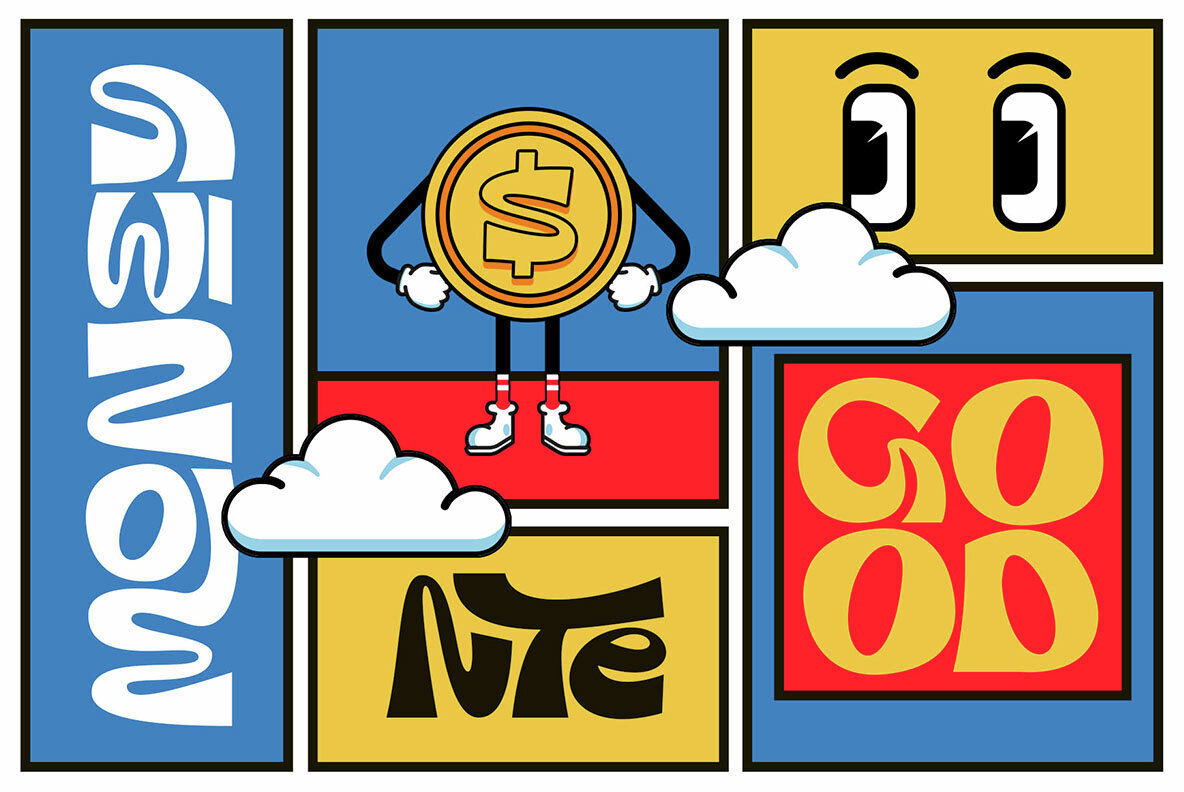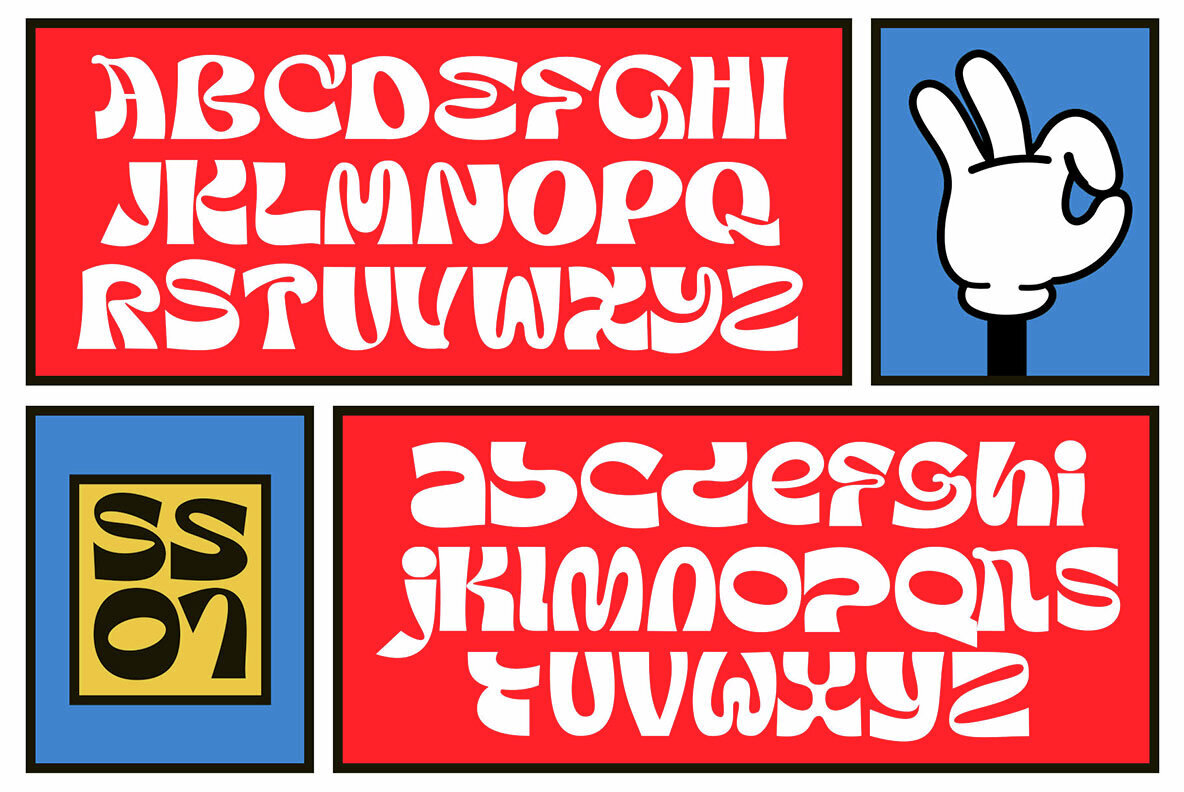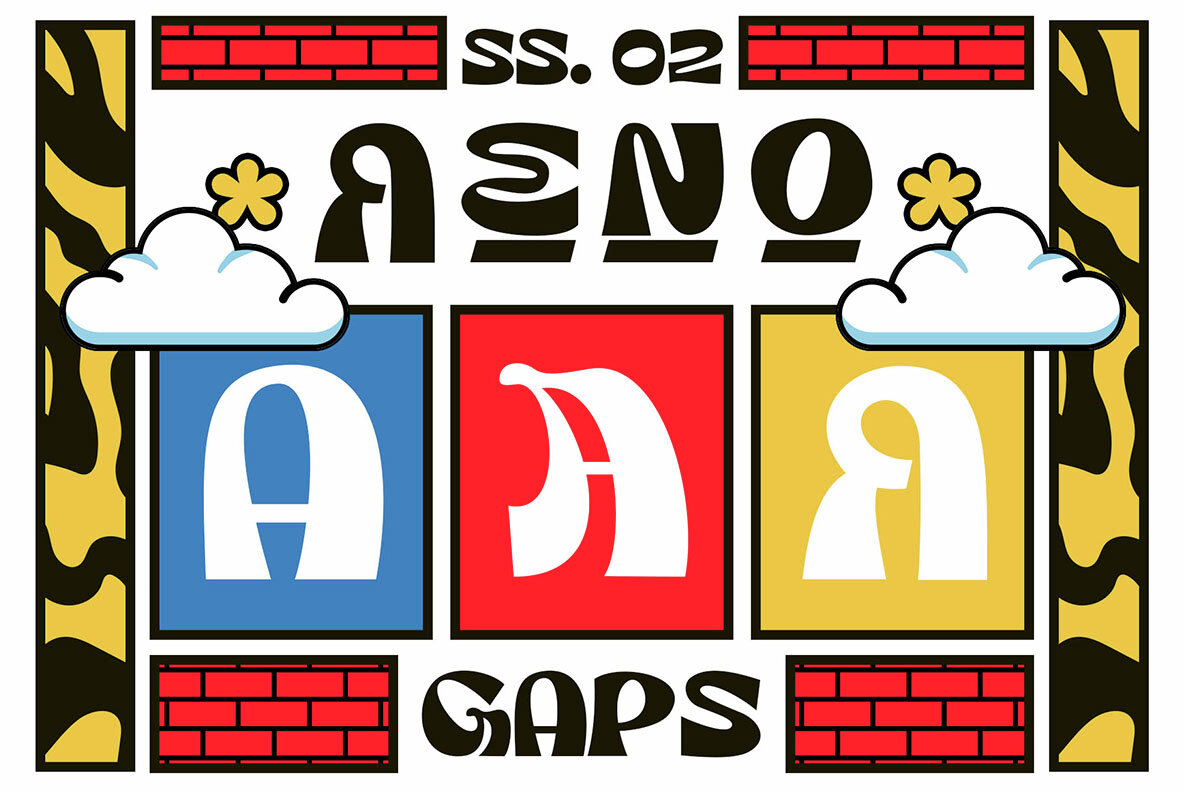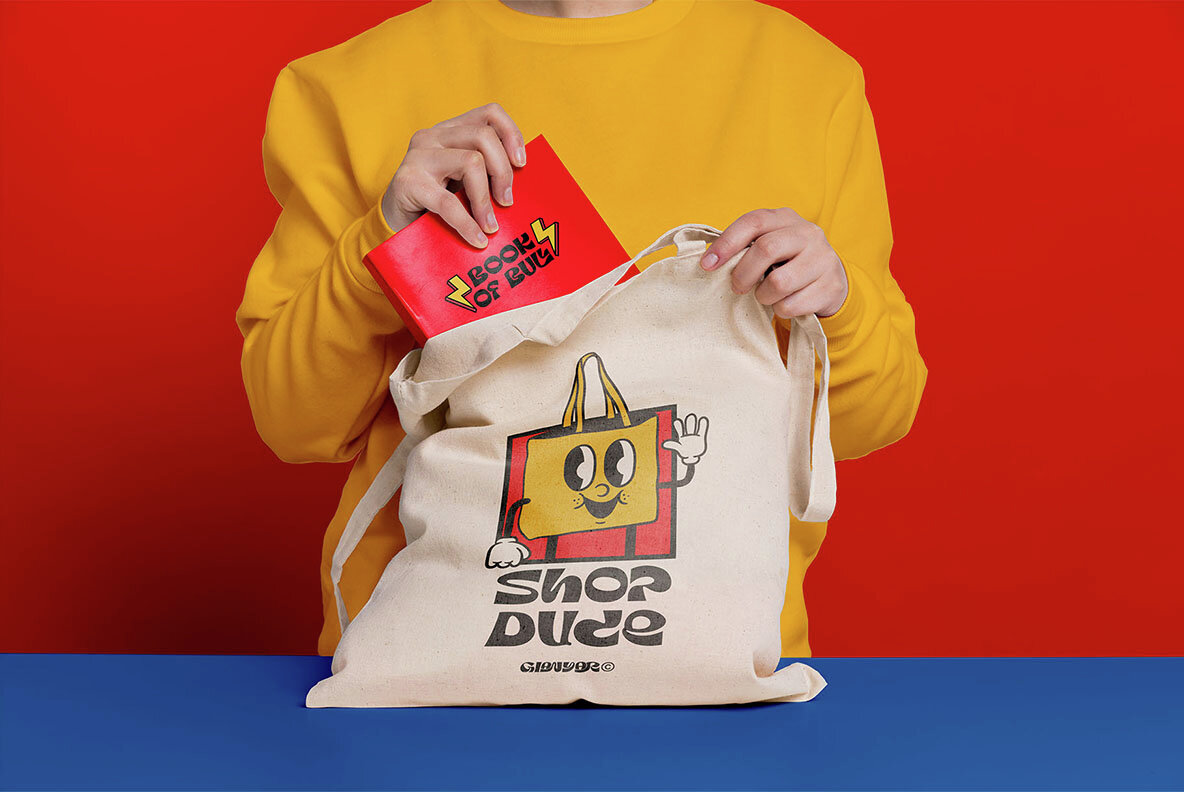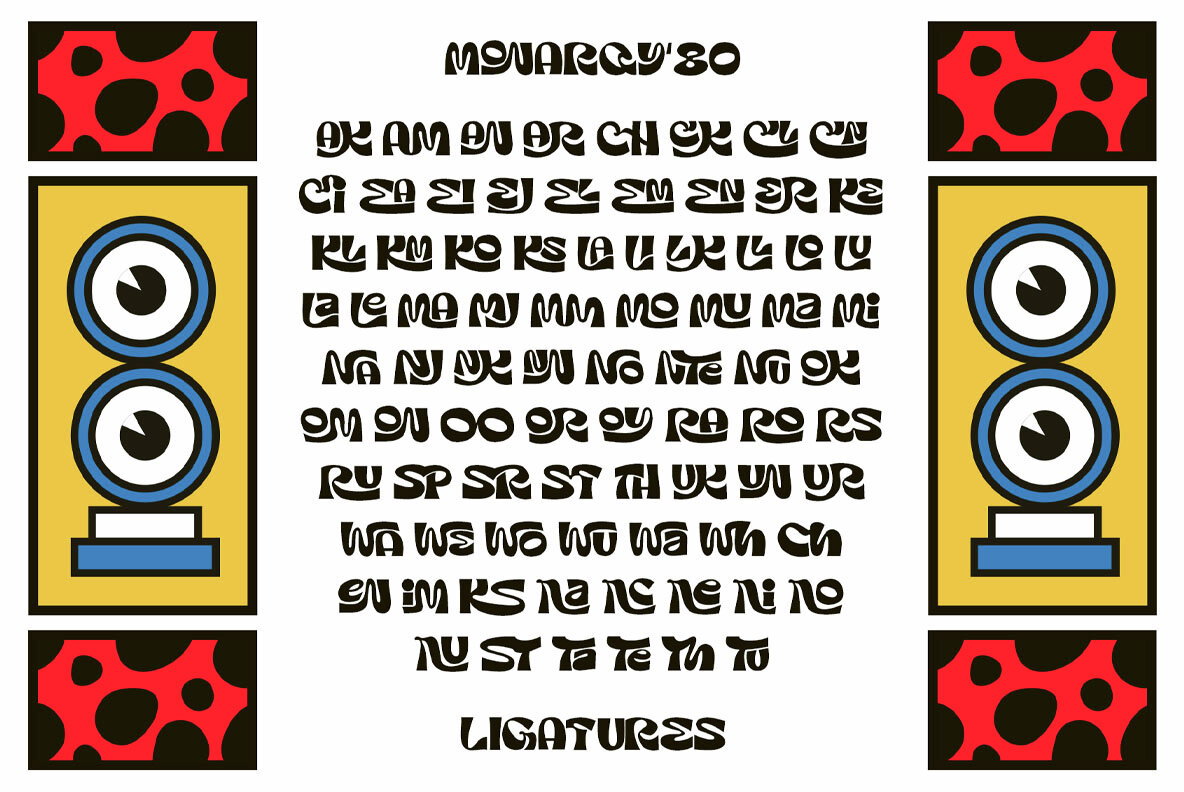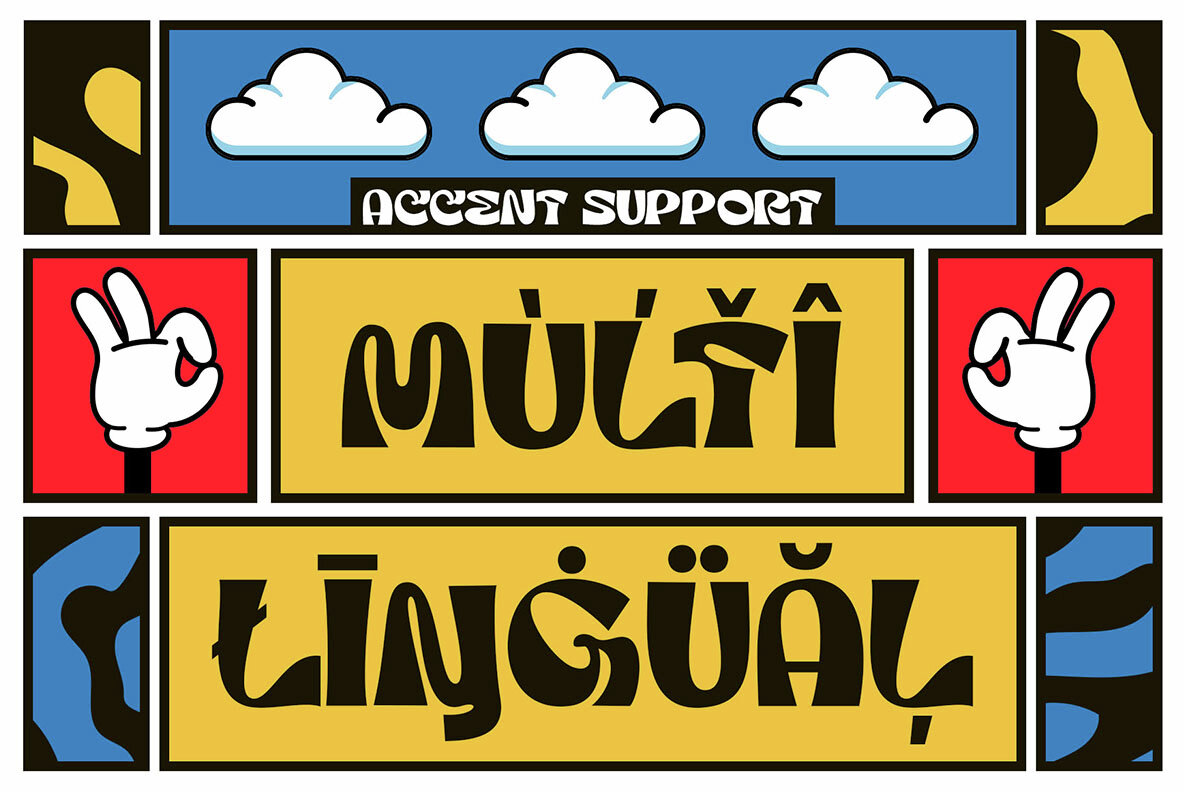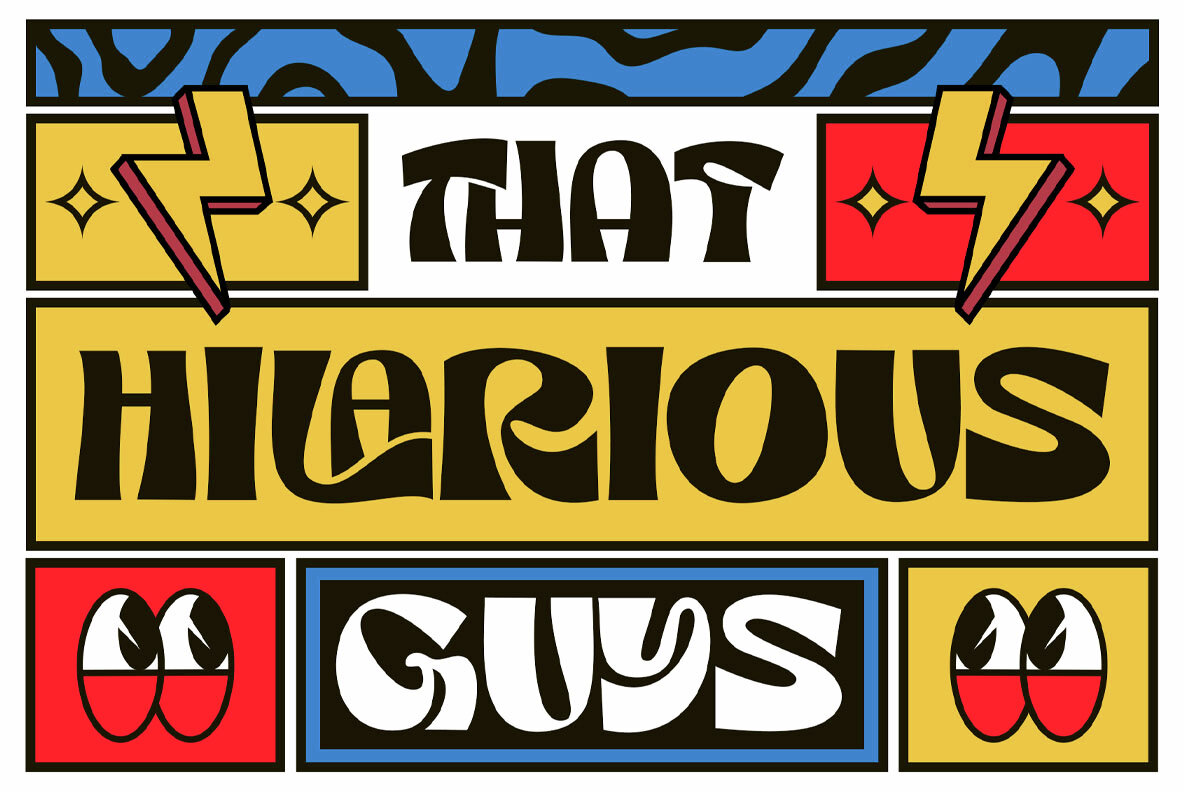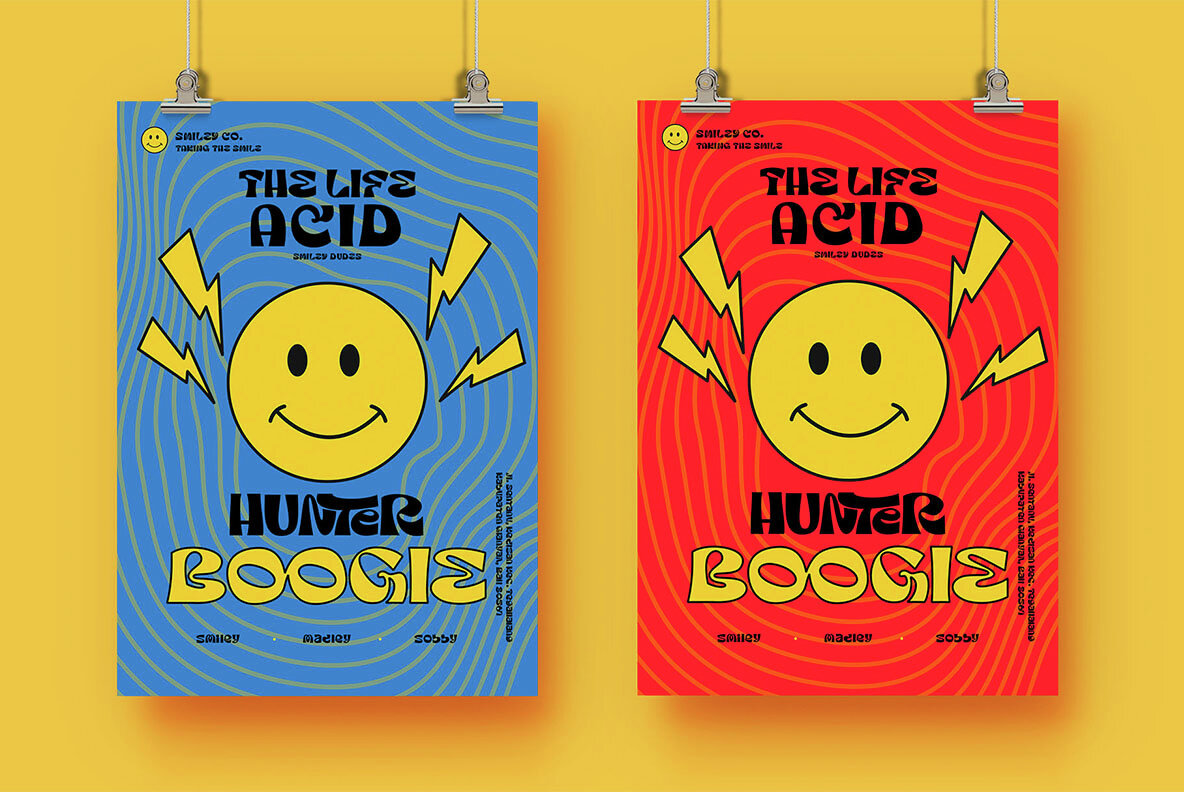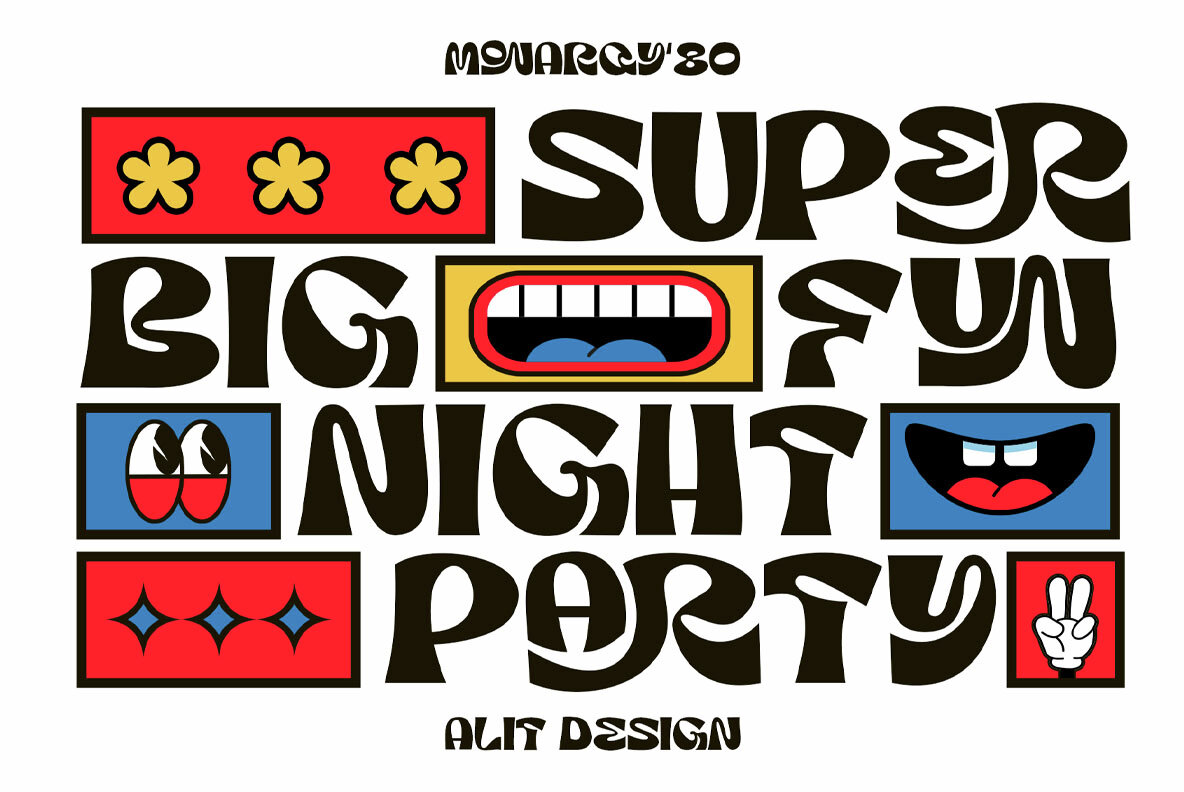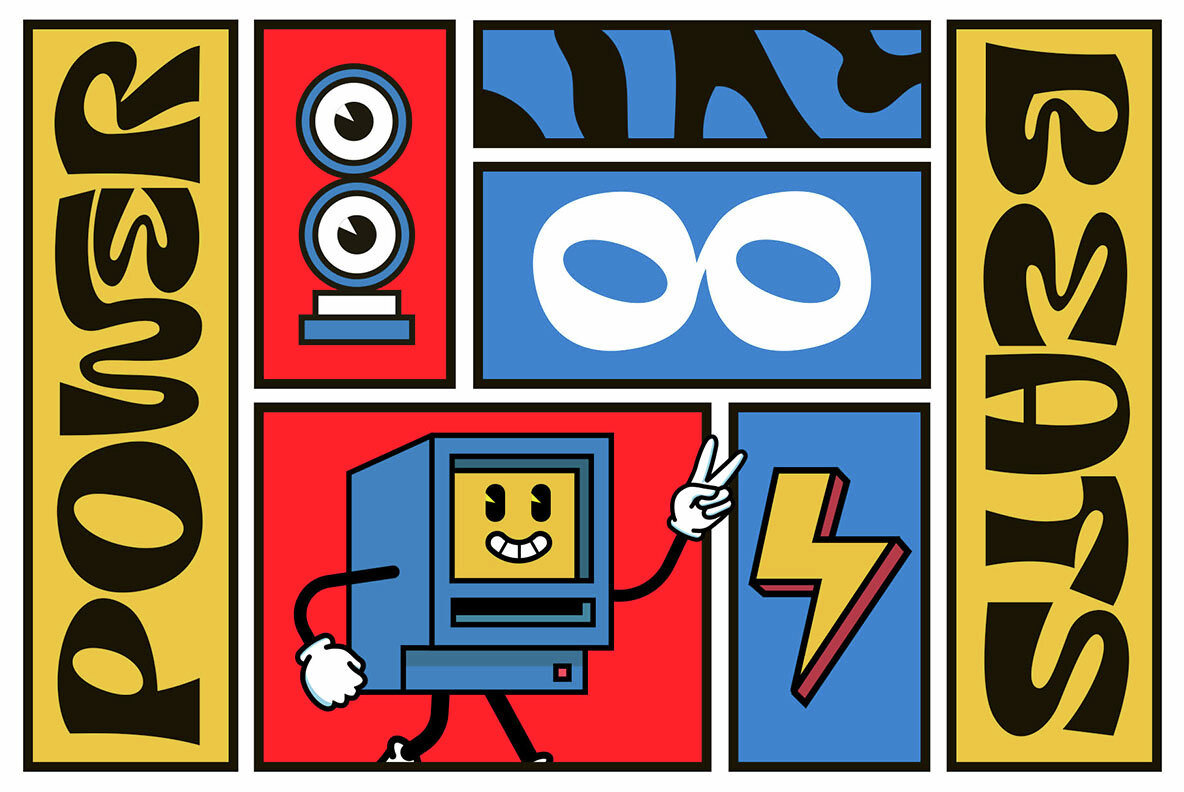
Monarqy Font
Monarqy Regular
Discover Monarqy - The Funky Retro Font with Dynamic Flair Get ready to transport your projects back to the rad era of the 1980s with Monarqy, a font that encapsulates the funky, retro style of the era while adding a contemporary twist. This font will infuse your designs with a vibrant, nostalgic energy that captures the essence of the 80s like no other. Cool Dynamic Characteristics: Monarqy oozes character with its funky, dynamic design. Each letter exudes a sense of movement and excitement, making it the perfect choice for projects that demand a playful and energetic vibe. Ligatures for That Perfect Flow: Monarqy offers an extensive range of ligatures, ensuring that your text flows seamlessly, delivering a polished and professional appearance. This feature is a game-changer for designers who demand precision in their typography. Rich Character Set: With an impressive repertoire of 610 characters, Monarqy accommodates a wide array of design applications. Whether you’re crafting headlines, branding, or body text, you’ll find all the characters you need to bring your vision to life. Alternatives for Creative Freedom: Monarqy doesn’t hold back when it comes to creative freedom. The font provides alternative characters that let you experiment and find the perfect fit for your design. Customize your text to match your unique style and vision effortlessly. Multilingual Support: Monarqy is your passport to the global design landscape. With comprehensive multilingual support, it effortlessly adapts to various languages and ensures your message resonates across borders. Monarqy is Perfect for: Reignite the spirit of the 80s with Monarqy and let your creativity shine. Whether you’re working on a fun project or a professional design, this font will add that extra touch of style and nostalgia. Get your copy of Monarqy today and embark on a typographic journey back to the funky, retro world of the 80s!